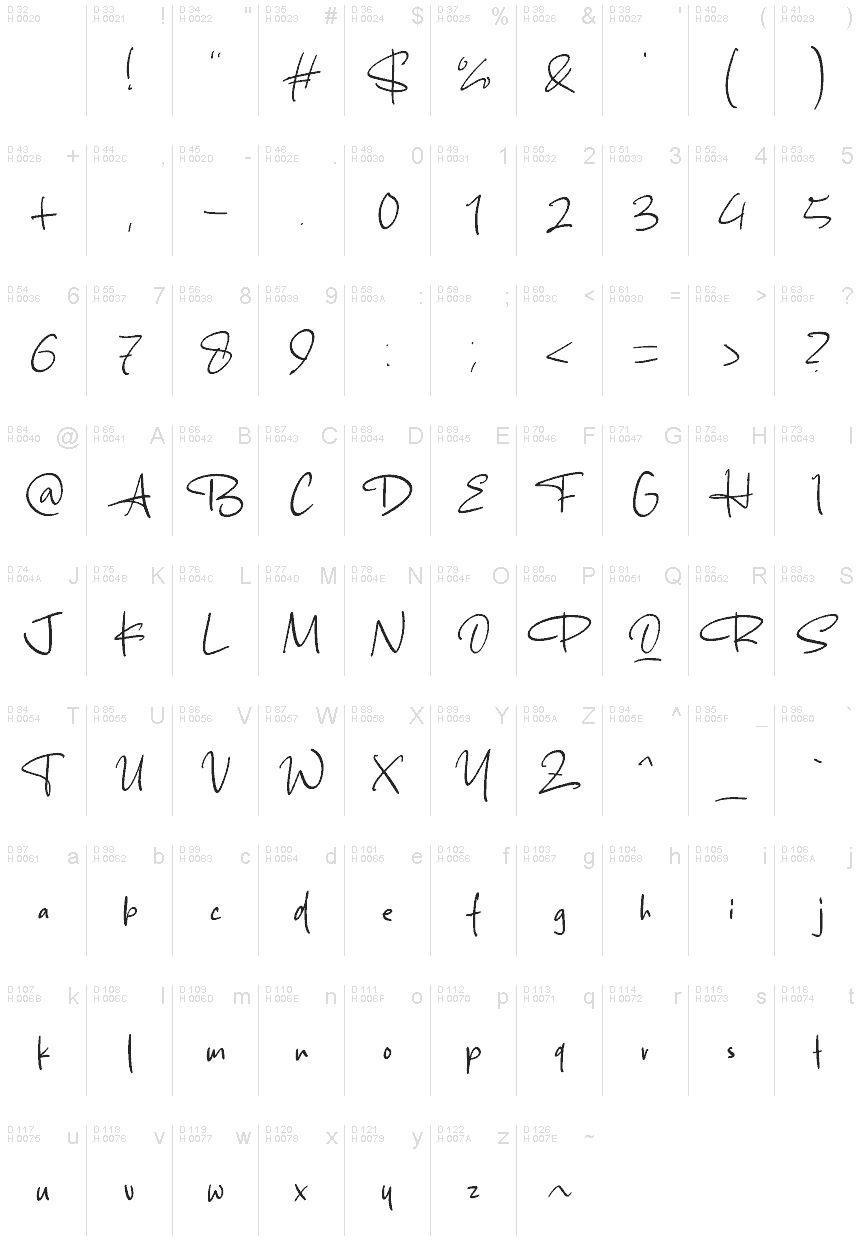
Pomoyan Sunrise
Pomoyan Sunrise font by MJType is a natural, flowing handwritten font that delights with its expressive and casual appearance. Its modern calligraphy style imbues an artistic flair perfect for diverse projects in need of a personal touch. Pomoyan Sunrise in a free font which adapts to any medium with elegance and charm.
With its incredible touch on logos, social media posts, and branding projects ; it is even smoother on posters, clothing items, invitations & wedding cards.